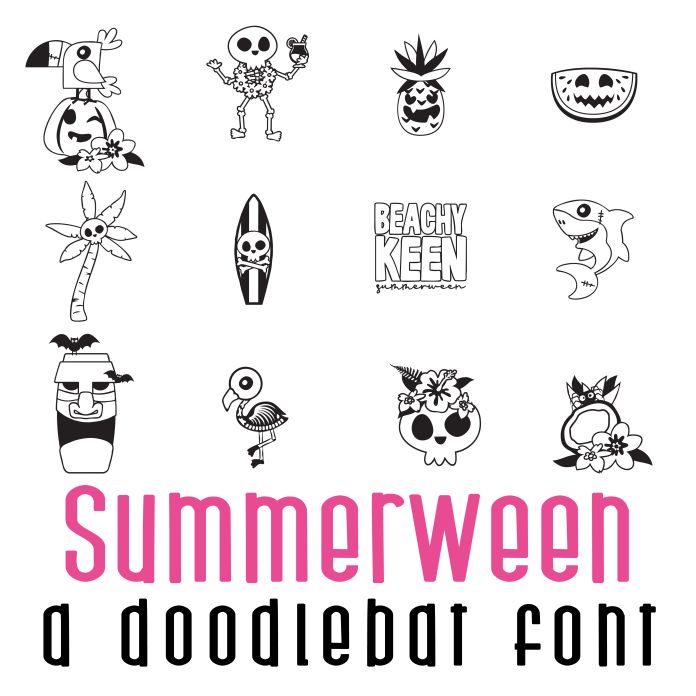
This fun doodlebat font features 26 fun Summerween images! Perfect for summer, halloween, summerween,cards, crafts, parties, gifts, decor, planner stickers, classrooms, scrapbook pages and more!